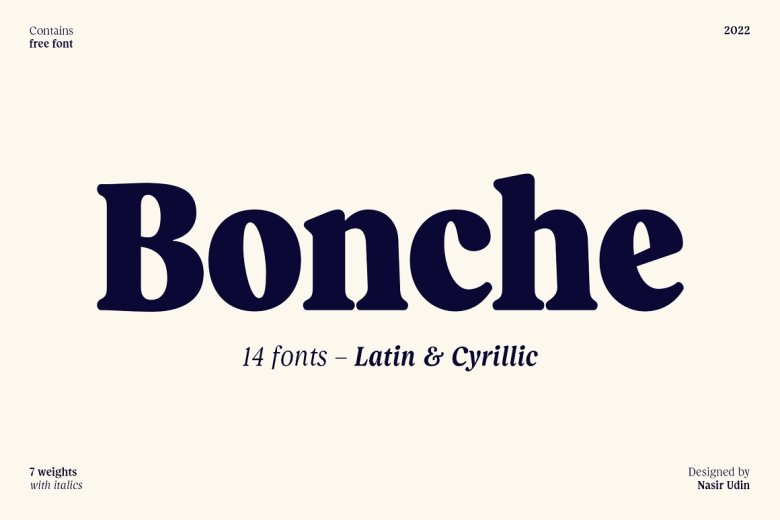
Bonche Font
Bonche Serif Font is modern serif font family which includes a large range of punctuation glyphs, numerals, and multilingual support. Inspired by the eccentricity of early 20th century typefaces – such as Belwe, Cooper, Souvenir, and Windsor – Bonche has a bit funky looks but not that fancy. It has a neutral appearance yet not so boring. With its “high x-height” and “medium-contrast stem ratio”, this typeface is easy to get people’s eyes.
The bolder weights offer a typography solution for your food branding, headline, book cover, article titles, or product packaging. The lighter weights can be used for longer texts or paragraphs.
Bonche Serif Font Family